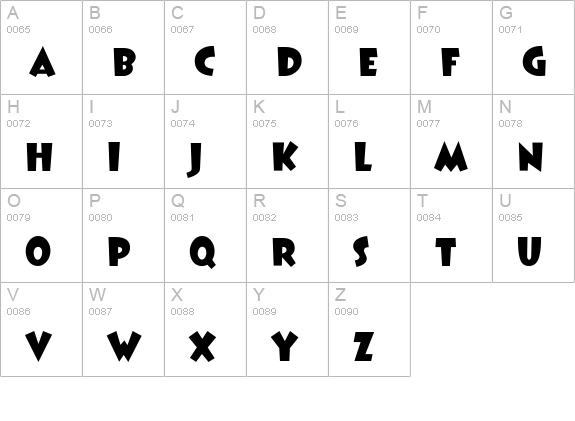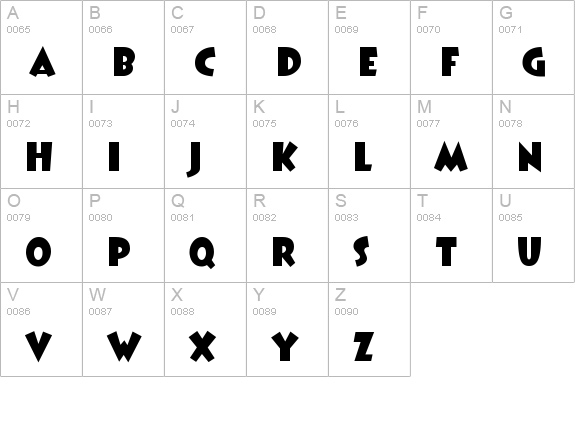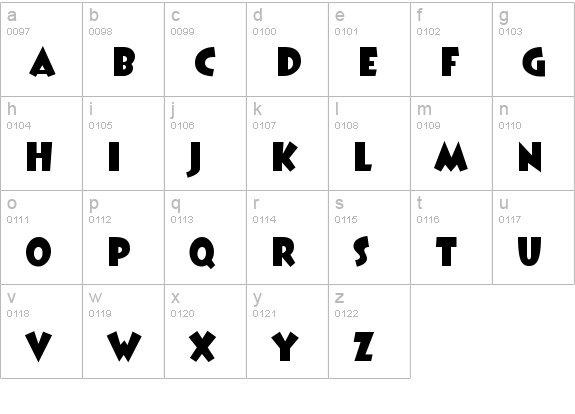
BoogieWoogieHmkBold Font Details
BoogieWoogieHmkBold font is a lively and energetic typeface that exudes a playful and fun vibe. Its bold and dynamic characters are perfect for making a statement in headlines, posters, and any design projects that require a touch of creativity. With its unique style and quirky charm, BoogieWoogieHmkBold font is sure to grab attention and add a sense of whimsy to your designs. Best of all, BoogieWoogieHmkBold font is available for free download at FontsMarket.com. You can easily access this versatile and eye-catching font to enhance your projects and bring your ideas to life. Don't miss out on the opportunity to add a pop of personality to your designs with BoogieWoogieHmkBold font, the perfect choice for those looking to make a bold statement with their typography.